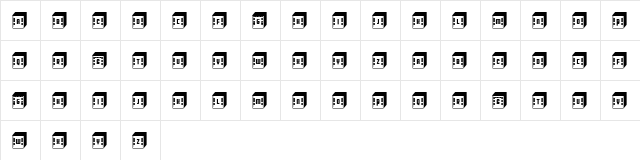
Calf Negative Regular Font Preview
Calf Negative Regular
Design Context for Calf Negative Typeface
Calf Negative is a composed and adaptable typeface that performs quietly and consistently across a wide range of design contexts.